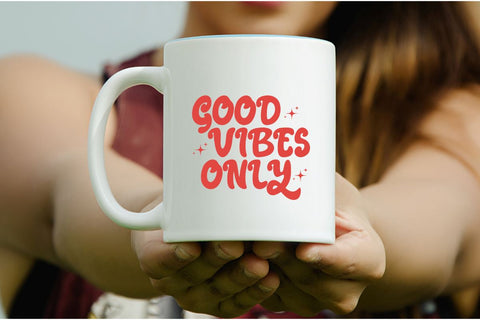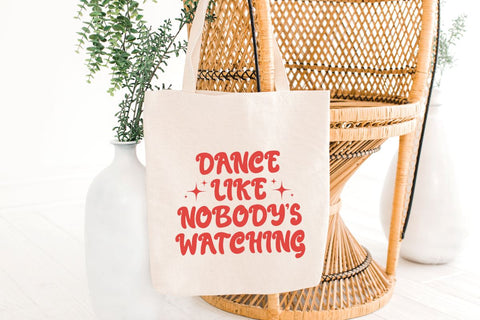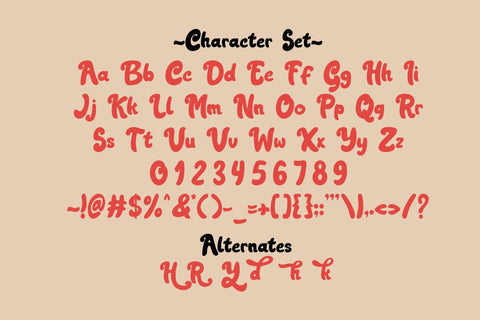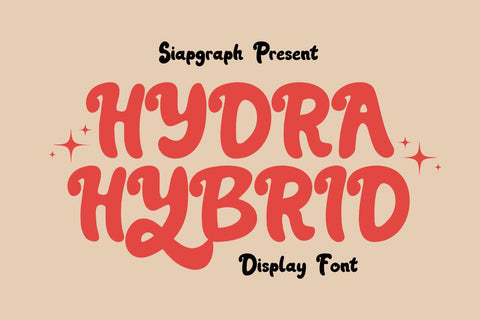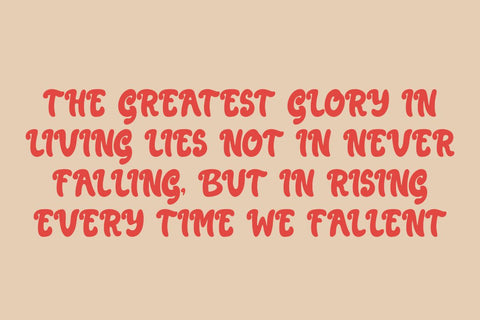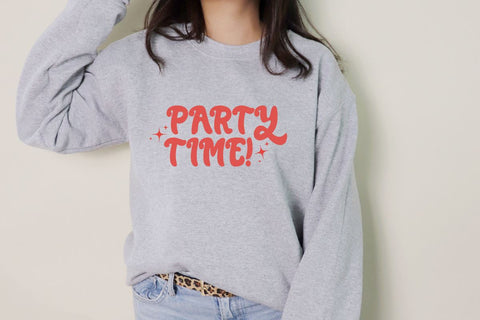
Hydra Hybrid - Retro Script Font
Hydra Hybrid is a retro and playful handwritten font full of character and charm. With its unique design that blends nostalgia and vibrancy, this font is the perfect choice to elevate your creative projects.
Ideal for crafting, DIY, branding, and KDP interior, Hydra Hybrid works beautifully for planner designs, logos, greeting cards, merchandise, and product promotions. Designed to bring a casual yet professional feel, this font is versatile for a variety of design needs.
Bring a retro and playful vibe to your projects with Hydra Hybrid, and make your designs truly stand out!